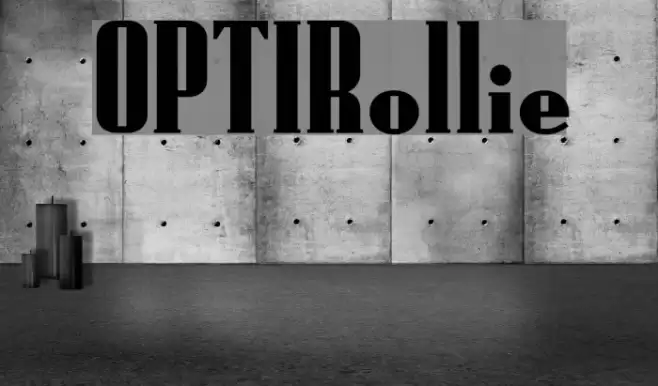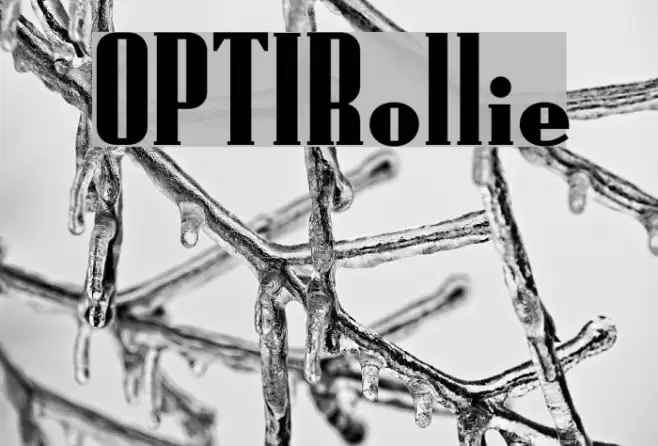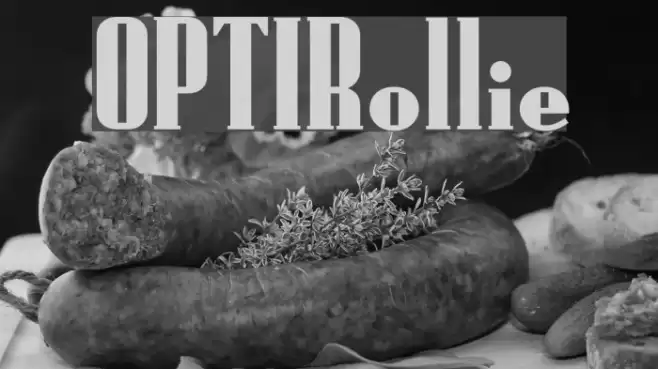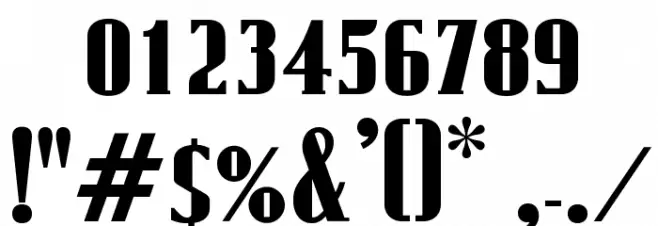
OPTIRollie Font
OPTIRollie Description
This font features a bold and striking design with high contrast between thick and thin strokes, giving it a dramatic and impactful appearance. The uppercase letters are tall and narrow, with sharp serifs that add a touch of elegance and sophistication. The lowercase letters maintain a consistent style, with rounded forms that balance the sharpness of the serifs. The numerals are equally bold, ensuring they stand out in any context. Special characters are designed with the same attention to detail, making them visually cohesive with the rest of the font. This font is well-suited for projects that require a strong visual presence and a touch of classic elegance.
A bold, high-contrast serif font with sharp serifs and dramatic style from Uncategorized fonts.
- Proposed Projects: Ideal for headlines, posters, branding, and any design that requires a bold statement.
- Overall Style: Classic